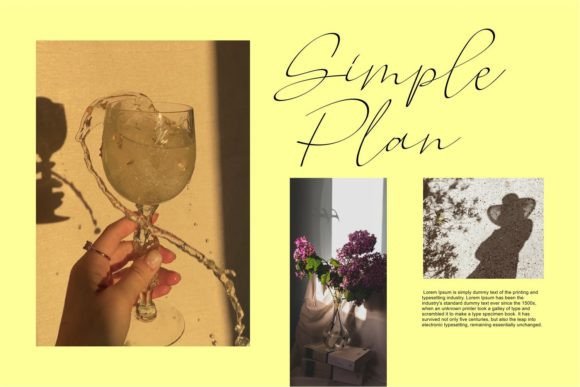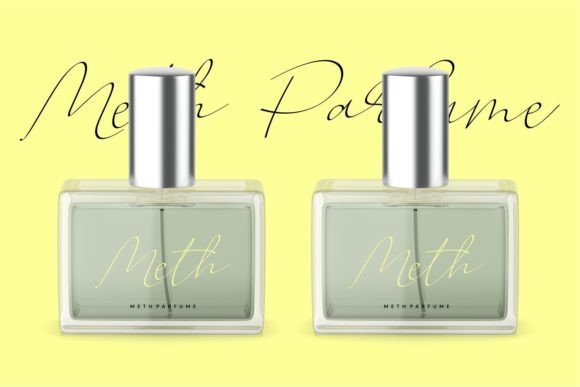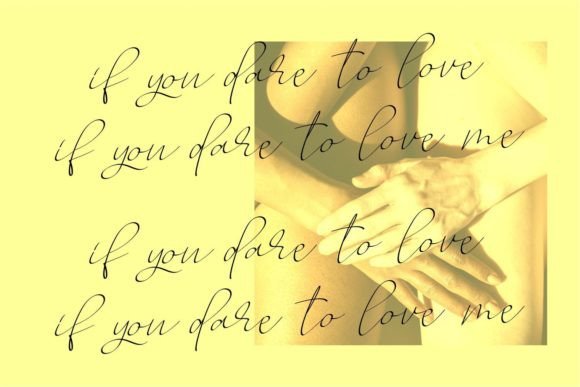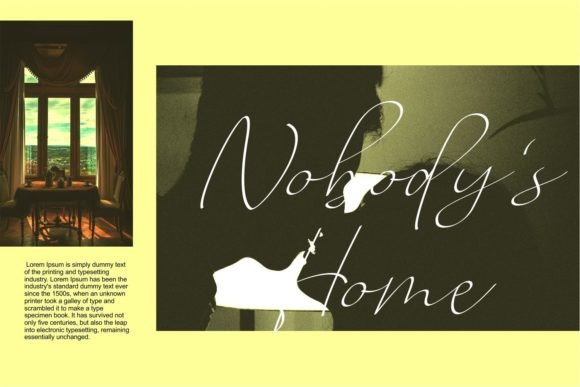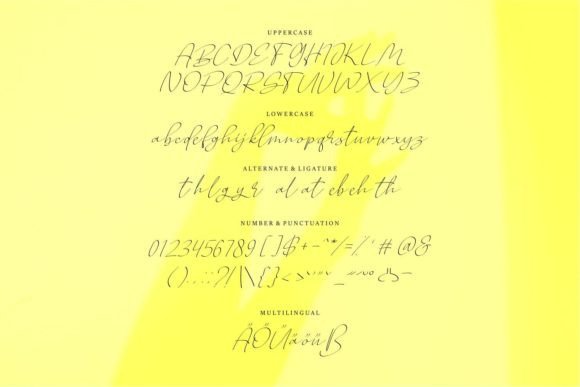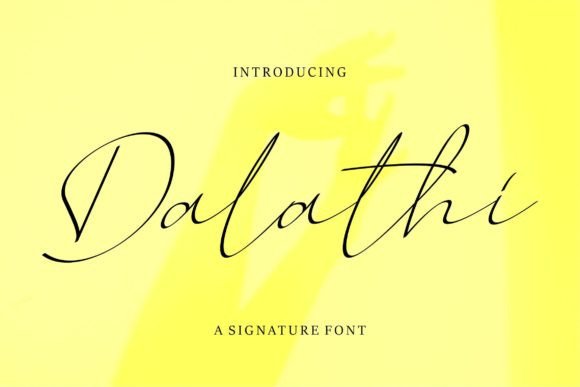
Introducing Dalathi Font: Elevate Your Designs with Elegant Calligraphy
In the world of typography, fonts play a crucial role in conveying the tone and aesthetic of a design. For crafters, designers, and anyone looking to add a touch of elegance to their projects, the Dalathi Font is an excellent choice. This signature script font, with its beautiful calligraphy style, is perfect for creating stunning invitations, greeting cards, branding materials, business cards, quotes, posters, and more.
What is Dalathi Font?
Dalathi is a meticulously crafted script font that embodies the essence of calligraphy. Its fluid strokes and elegant letterforms make it an ideal choice for designs that require a personal touch. Whether you’re working on a wedding invitation, a branding project, or a simple greeting card, Dalathi Font is sure to impress.
Key Features of Dalathi Font
- Calligraphy Style: Dalathi Font boasts a beautiful calligraphy style that adds a touch of sophistication to any design.
- Signature Script: Its signature script style makes it perfect for creating personalized and unique designs.
- Versatile: Dalathi Font can be used for a wide range of projects, from invitations and greeting cards to branding materials and posters.
- Elegant: The font’s elegant letterforms and fluid strokes make it an excellent choice for designs that require a touch of class.
Dalathi Font is a versatile font that can be used by designers and crafters alike. Its elegant calligraphy style makes it perfect for:
- Wedding Invitations: Create stunning wedding invitations that set the tone for the big day.
- Greeting Cards: Design beautiful greeting cards for special occasions like birthdays, anniversaries, and holidays.
- Branding Materials: Use Dalathi Font to create elegant branding materials like logos, business cards, and letterheads.
- Posters: Create eye-catching posters that showcase your message in a stylish and elegant way.
- Quotes: Design inspiring quotes that feature the beautiful calligraphy of Dalathi Font.
Why Choose Dalathi Font?
With so many fonts available, why choose Dalathi Font? Here are a few reasons:
- Unique: Dalathi Font offers a unique and distinctive style that sets it apart from other fonts.
- Elegant: Its elegant calligraphy style makes it perfect for designs that require a touch of sophistication.
- Versatile: Dalathi Font can be used for a wide range of projects, making it a great addition to any designer’s toolkit.
In conclusion, Dalathi Font is a beautiful signature script font that offers a unique and elegant calligraphy style. Its versatility and ease of use make it perfect for designers and crafters who want to add a touch of sophistication to their designs. Whether you’re working on a wedding invitation, a branding project, or a simple greeting card, Dalathi Font is an excellent choice. So why wait? Download Dalathi Font today and elevate your designs to the next level!